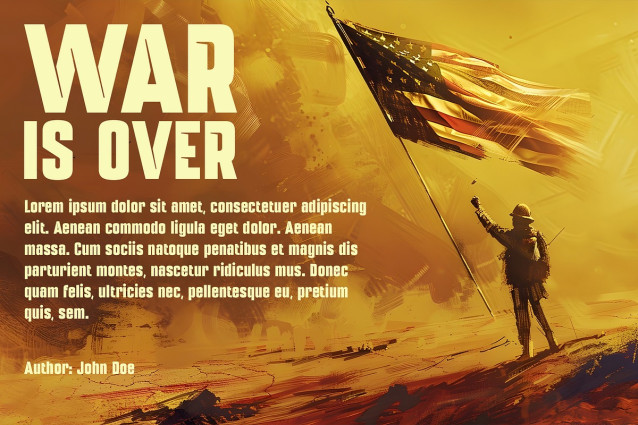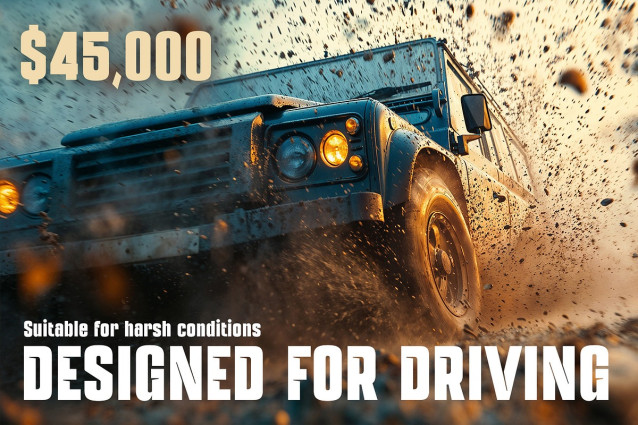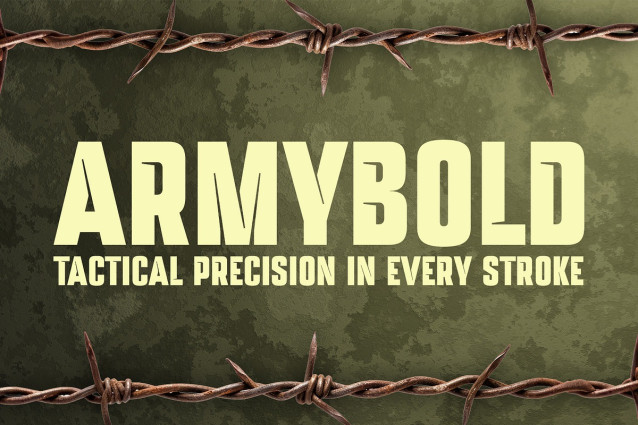
Armybold Font
Armybold Font is a powerful stencil-style military font designed with bold precision and tactical strength. Inspired by army lettering and rugged field typography, this typeface is perfect for posters, movie titles, packaging, video graphics, apparel, branding, and propaganda-style designs. Its sharp edges, heavy strokes, and authentic stencil cuts make it ideal for projects that demand impact, authority, and durability. Whether you are working on military campaigns, war documentaries, survival games, or bold advertising, Armybold delivers an unmistakable look of strength and discipline. Professional, versatile, and easy to use, this font is built to stand out in any creative battlefield.